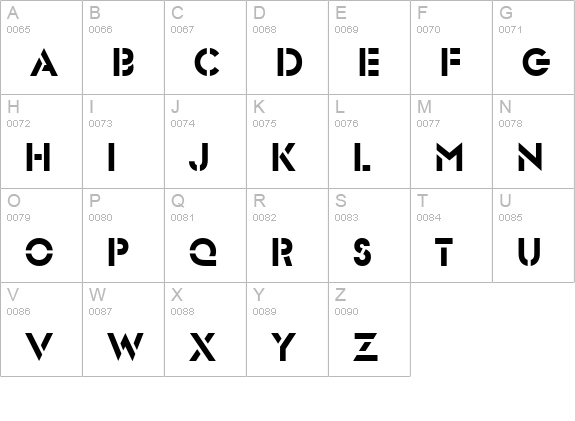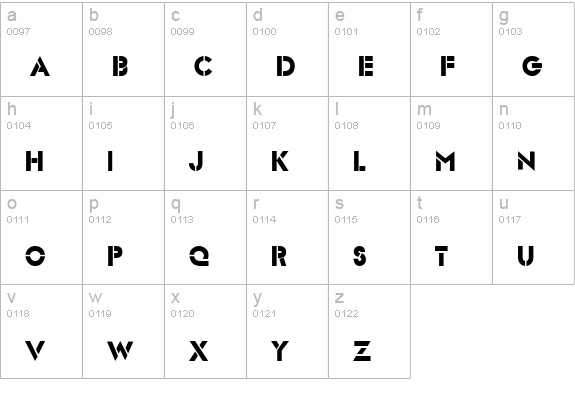
Templett Normal is the standard, neutral variant in the Templett typeface family \xE2\x80\x94 well suited to general body text, paragraphs, and standard typographic work.
Templett Normal is a versatile and sleek font that is perfect for a wide range of design projects. With its clean lines and modern appearance, this font exudes professionalism and sophistication. Whether you are creating a logo, designing a website, or crafting a stylish invitation, Templett Normal is sure to add an elegant touch to your work. One of the best things about Templett Normal is that it is available for free. Yes, you read that right – this amazing font can be downloaded at absolutely no cost. FontsMarket.com is proud to offer this font as a free download, allowing designers, creatives, and enthusiasts to access it easily and use it in their projects without breaking the bank. This font is not only visually appealing but also highly legible, making it a great choice for both print and digital media. Its clean and straightforward design ensures that your message is conveyed effectively and effortlessly. Whether you are designing a magazine layout, creating a poster, or even writing a blog post, Templett Normal will ensure that your content is easy to read and visually appealing. With its wide range of weights and styles, Templett Normal offers plenty of flexibility for your design needs. Whether you prefer a bold and eye-catching look or a more subtle and understated design, this font has got you covered. Its versatility makes it a great choice for a variety of design projects and applications. So, if you're looking for a stylish and professional font that won't cost you a penny, look no further than Templett Normal. Download it for free at FontsMarket.com and start incorporating this amazing font into your designs today. You won't be disappointed with the sleek and sophisticated aesthetic it brings to your projects.